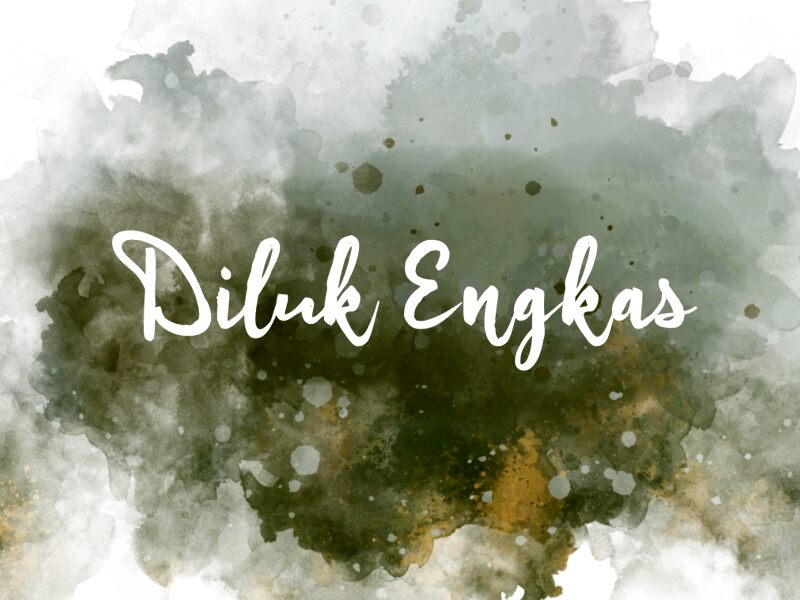
Diluk Engkas
Introducing Diluk Engkas, a beautiful script font designed by Wahyu Eka Prasetya. Light and airy, it's perfect for adding a romantic touch to wedding invitations, Valentine's cards or any other project that requires an elegant flair.